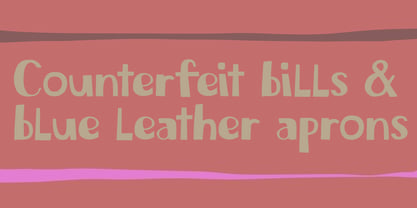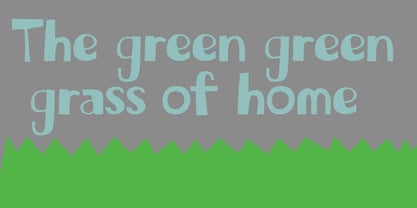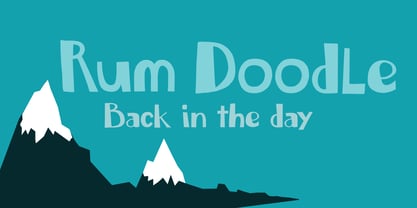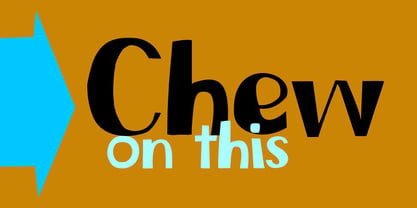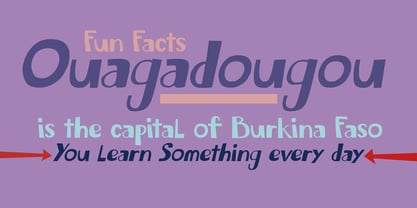
Chew On This Pro
The Chew On This Pro Font Family was designed by David Kerkhoff and published by Hanoded. Chew On This Pro contains 2 styles and family package options. More about this family
Back in 2013 I released an all caps font called Rum Doodle. Rum Doodle is a really nice, really weird font with angular glyphs and a unique look. I decided that it would be nice to tweak this font a bit and design a lower case for it. The result is Chew On This. The name Chew On This has nothing to do with anything in particular - so don’t make a fuss about it…
About Hanoded
Hanoded is run by Dutchman David Kerkhoff. His fonts are a mishmash of styles, as he just creates whatever pops into his head. You will find a lot of brush fonts in his collection, as his favourite tools are brushes and Chinese ink, with cartoon style fonts and script fonts complementing his repertoire. Aside from making fonts, David occasionally guides tours in far-flung places, renovates his '30's house and tries reasoning with his wife and (teenage) kids. Not an easy task!